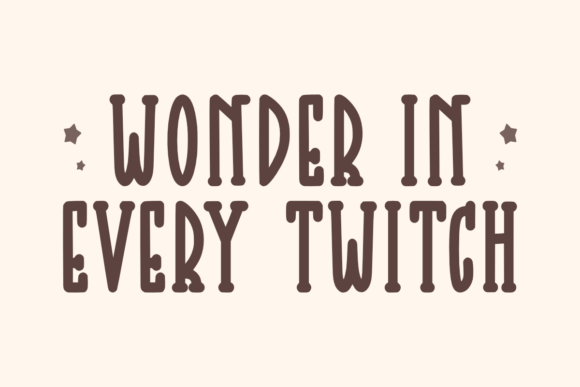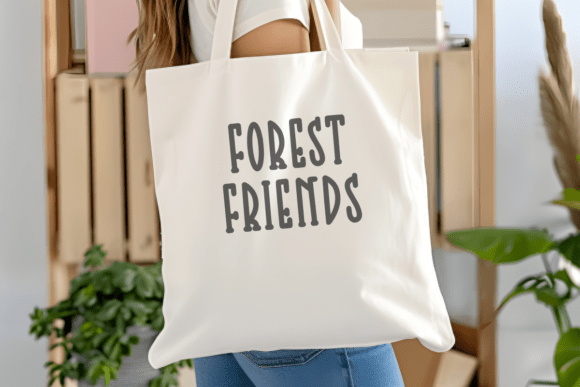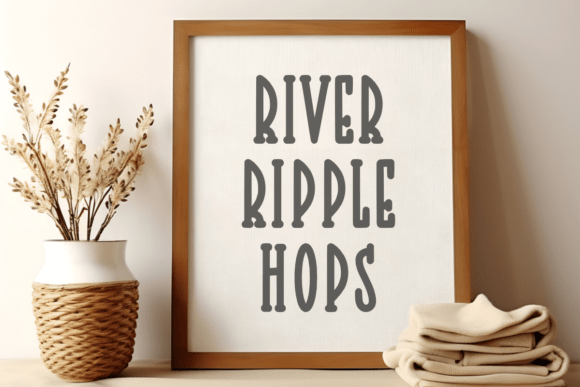
Rabbit Whimsy Font
Rabbit Whimsy is a cute and minimalist slab serif font. This font is perfect for greeting cards, wedding invitations, gift labels, mugs, t-shirts, quotes, labels, etc. Use it to create spectacular and interesting designs!